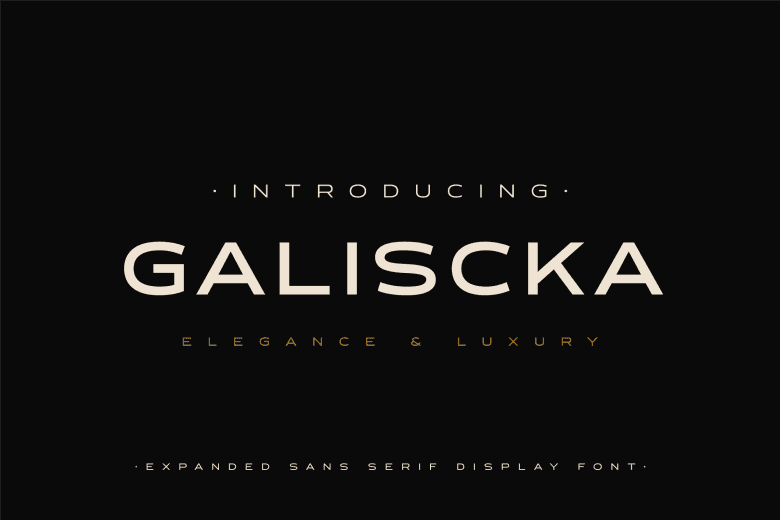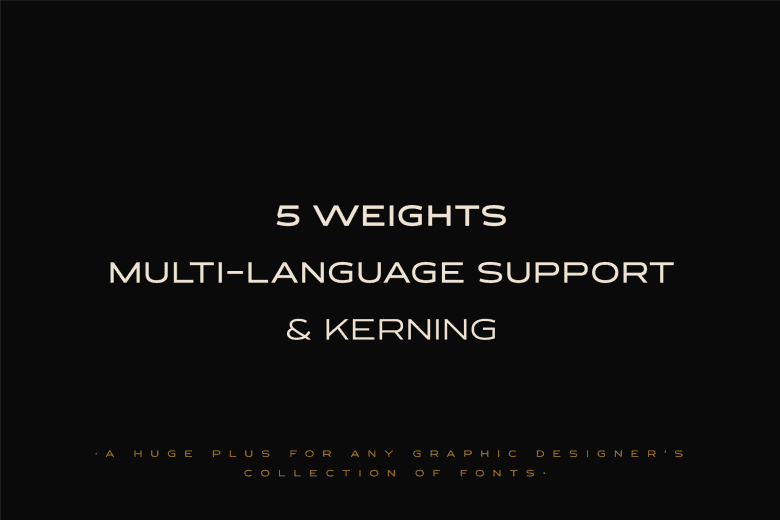
GALISCKA is the latest typeface designed for display, featuring an eye-catching extended character layout. SANS SERIF fonts have become one of the most desired choices in branding and graphic design; GALISCKA provides graphic designers with one of the cheapest (while still premium quality) solutions for making their designs appear more professional, elegant, sophisticated and aesthetic without using serif fonts.